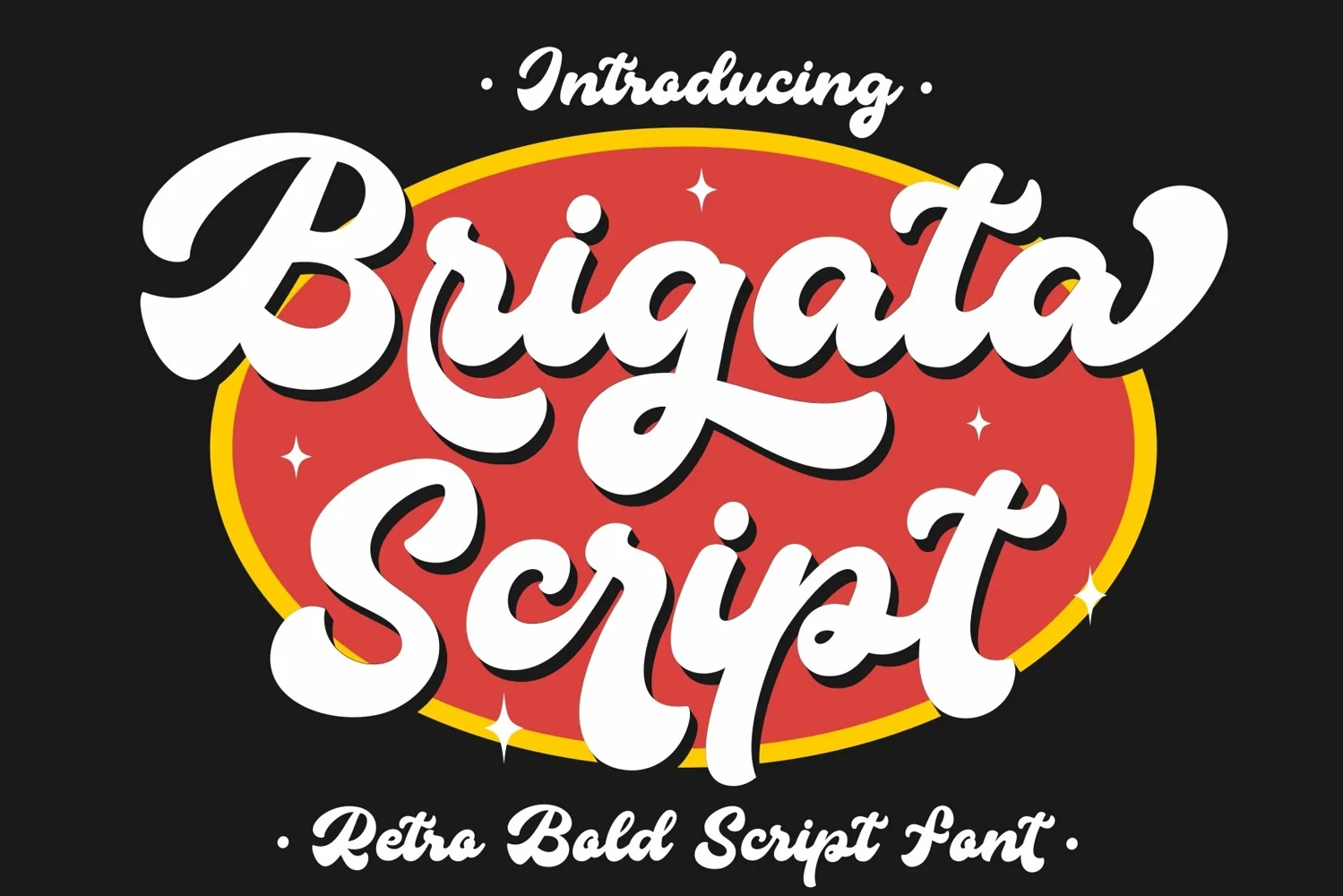
Brigata Script Font is a Retro Script Font with a Bold stylE, inspired by the retro typography designs.
Brigata Script It's perfect for branding, wedding invitations, photography, bloggers, logos, Lettering , greeting cards, Logo, Quotes,Poster and more.